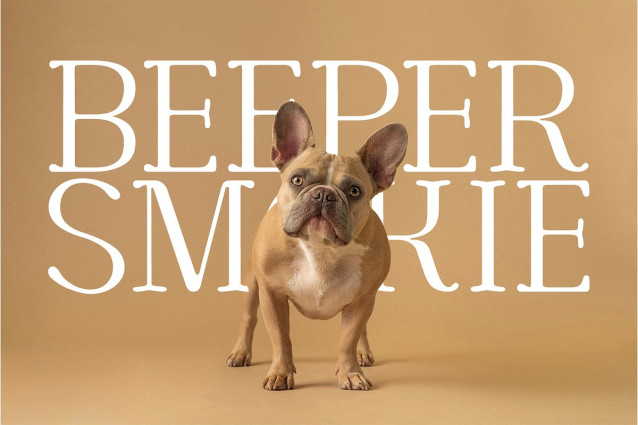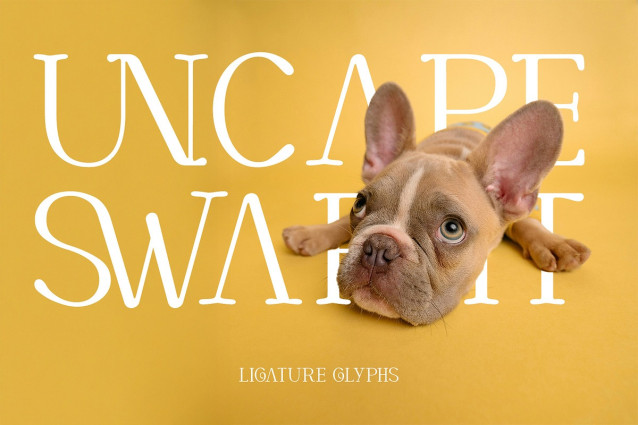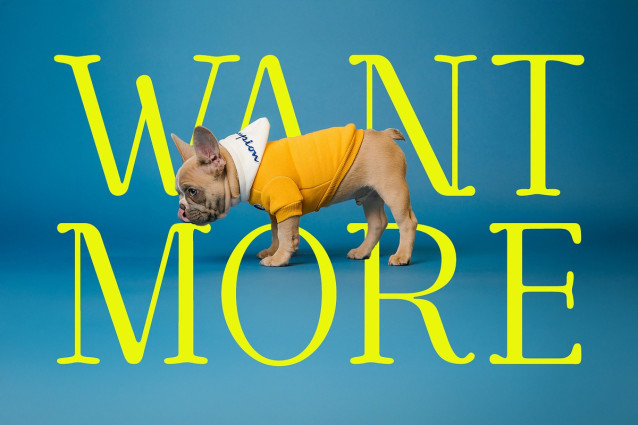
Cortexo Font
Cortexo Font is a sophisticated thin serif font crafted with precision and elegance, designed to elevate your creative projects with a touch of modern luxury. Ideal for posters, magazine covers, high-end branding, and editorial designs, this font delivers a refined aesthetic with sharp serifs and clean lines.